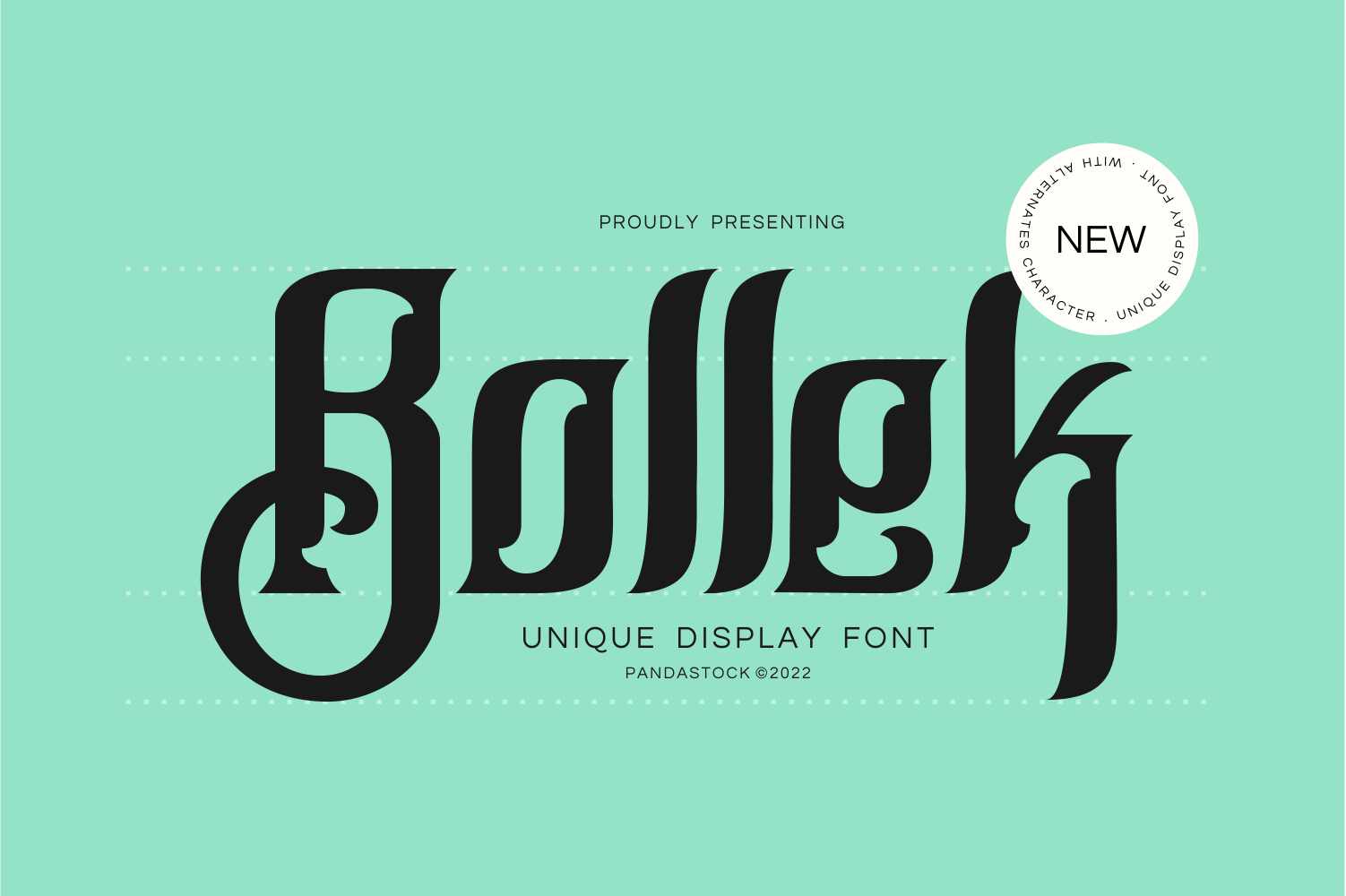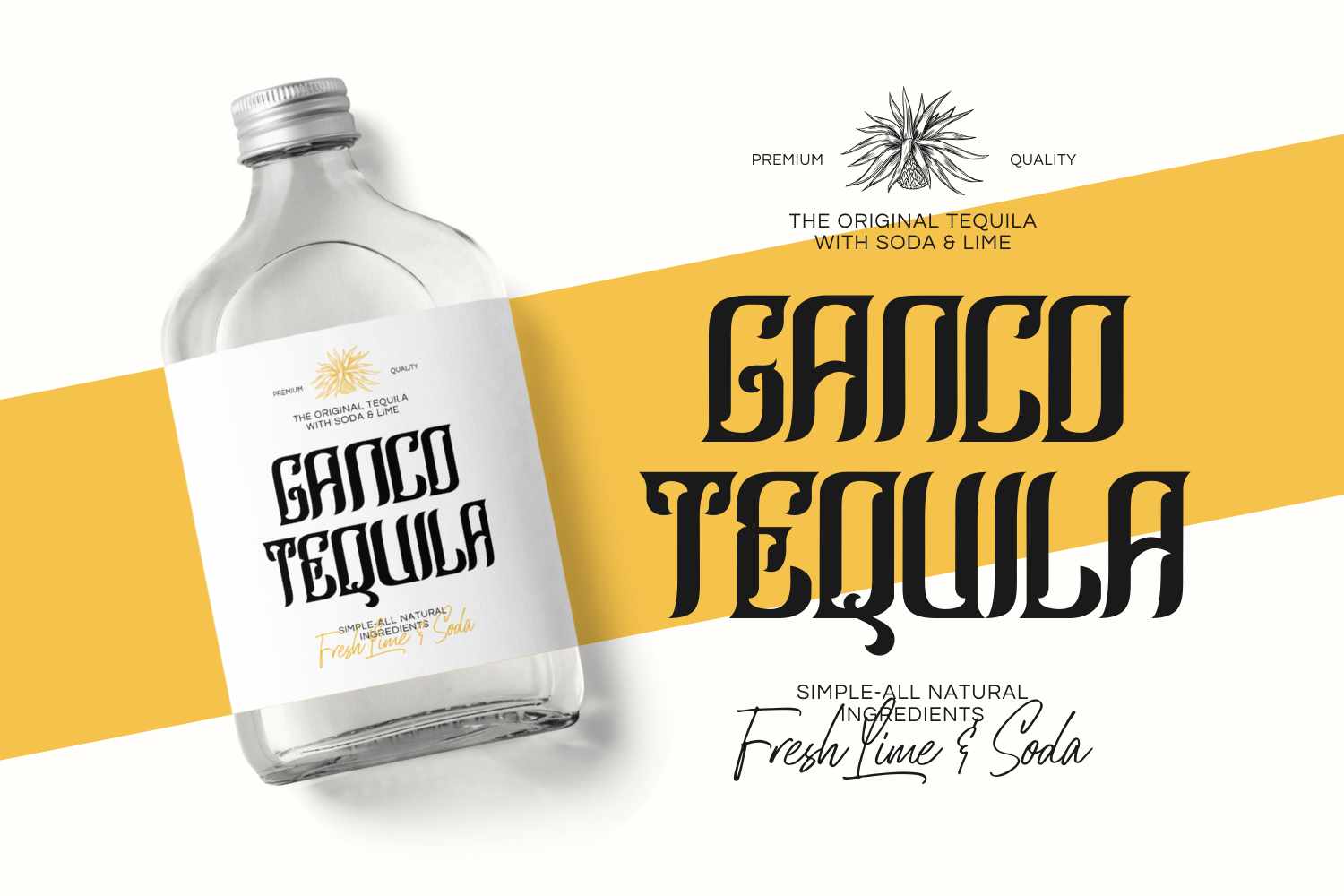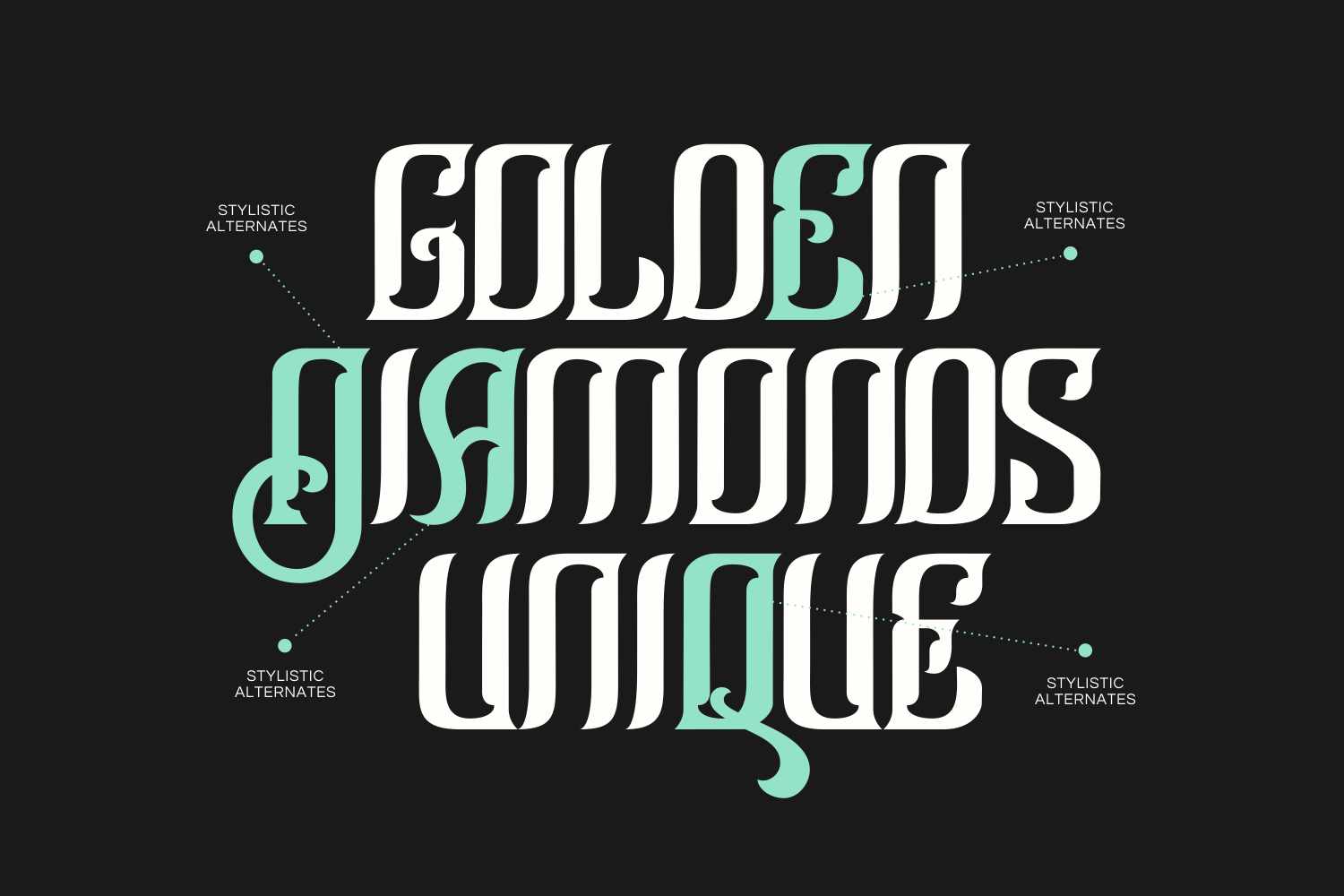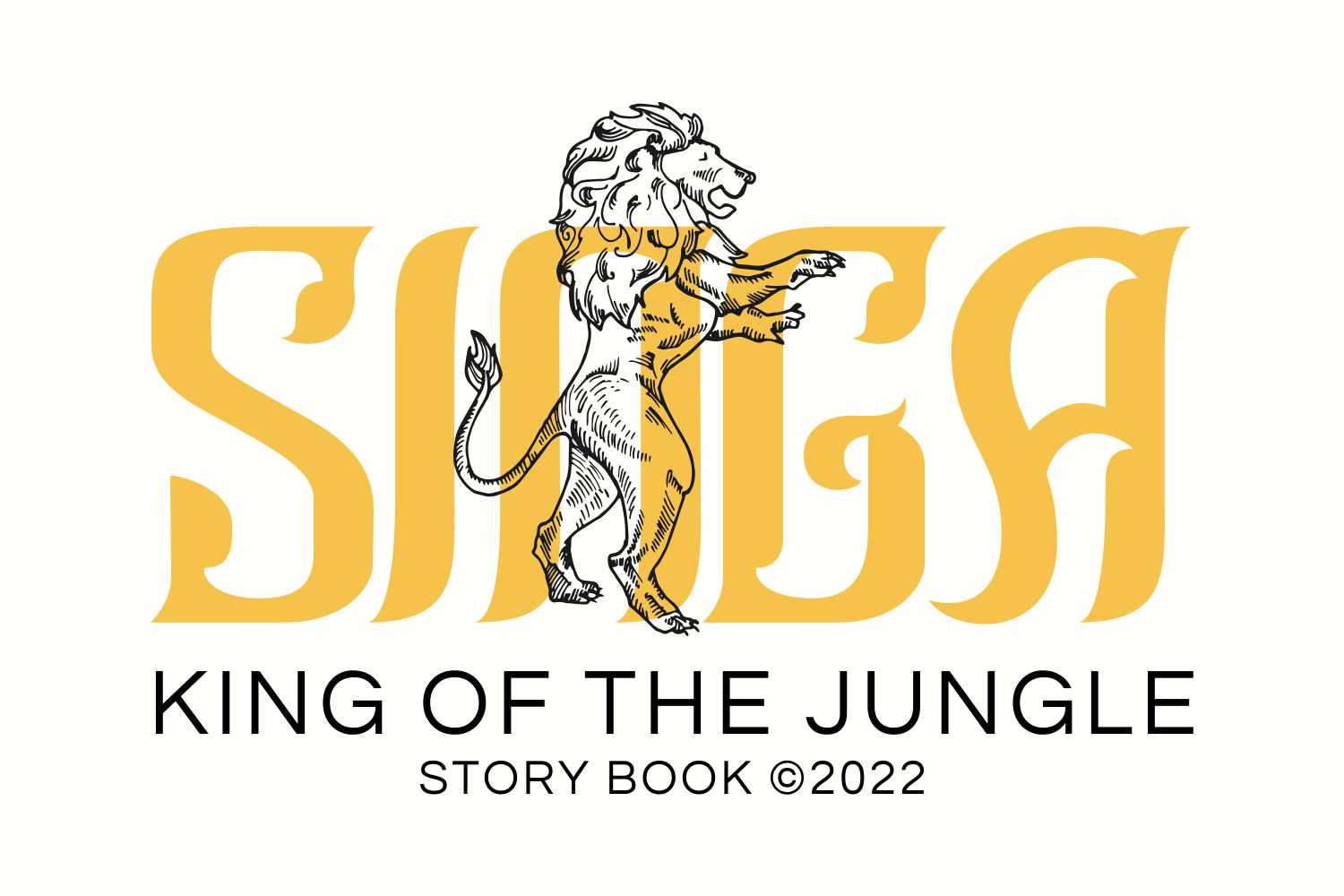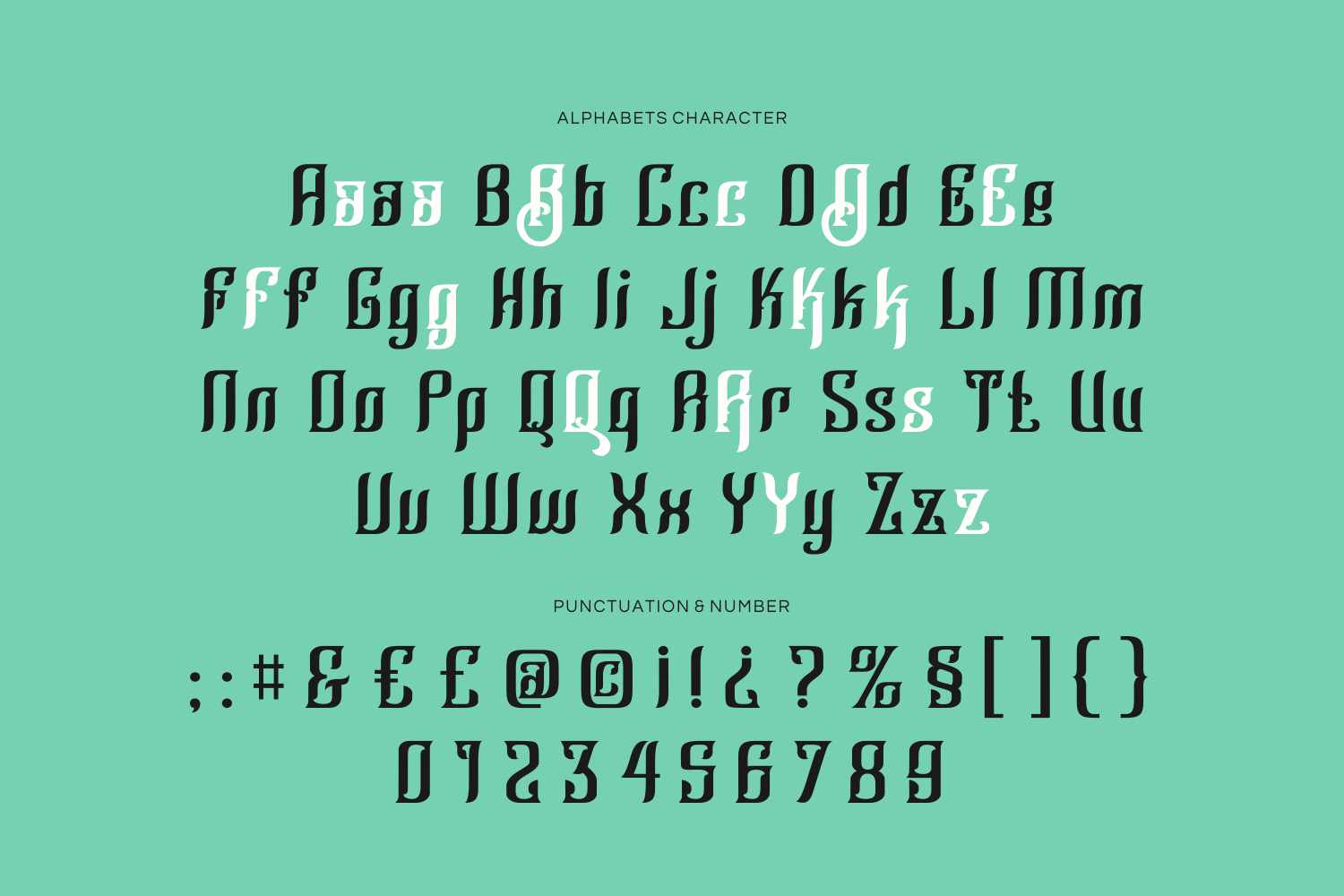
Bollek is a unique display font that combines bold gothic influences with modern stylistic alternates. Its dramatic curves and striking serifs create a strong visual impact, while the decorative flourishes add a sense of elegance and artistic flair. This font is designed to stand out, making it an excellent choice for projects that demand attention and creativity.
Perfect for branding, packaging, posters, and editorial headlines, Bollek adapts well across different design styles, from luxurious product labels to expressive logotypes. With its versatile alternates and stylish details, Bollek gives designers the flexibility to craft distinctive and memorable visuals that blend tradition with contemporary aesthetics.
Bollek